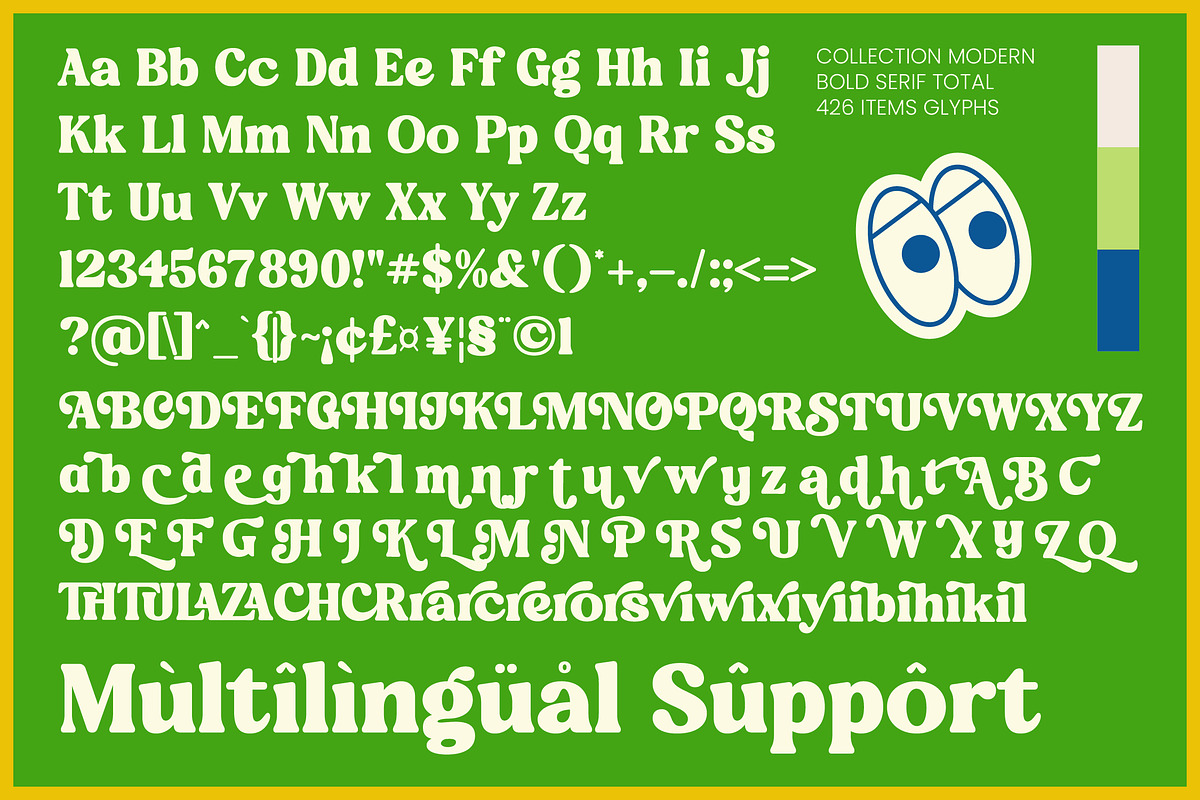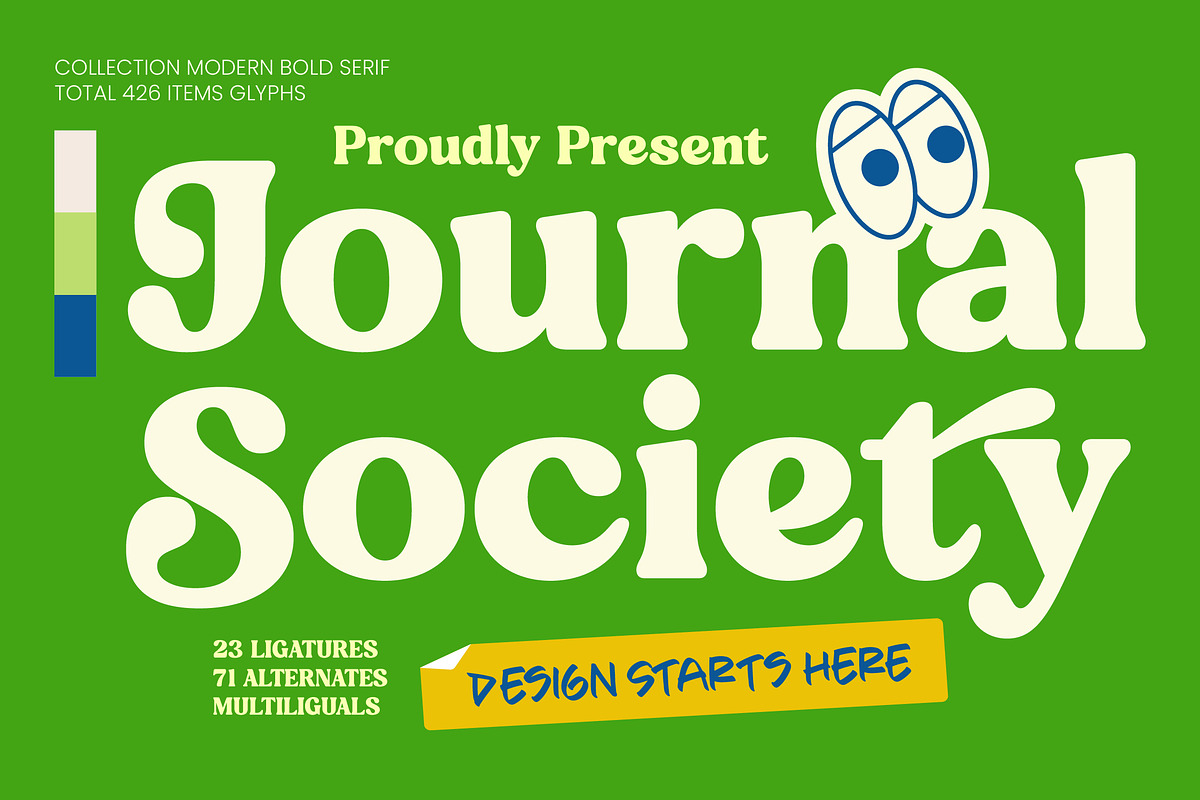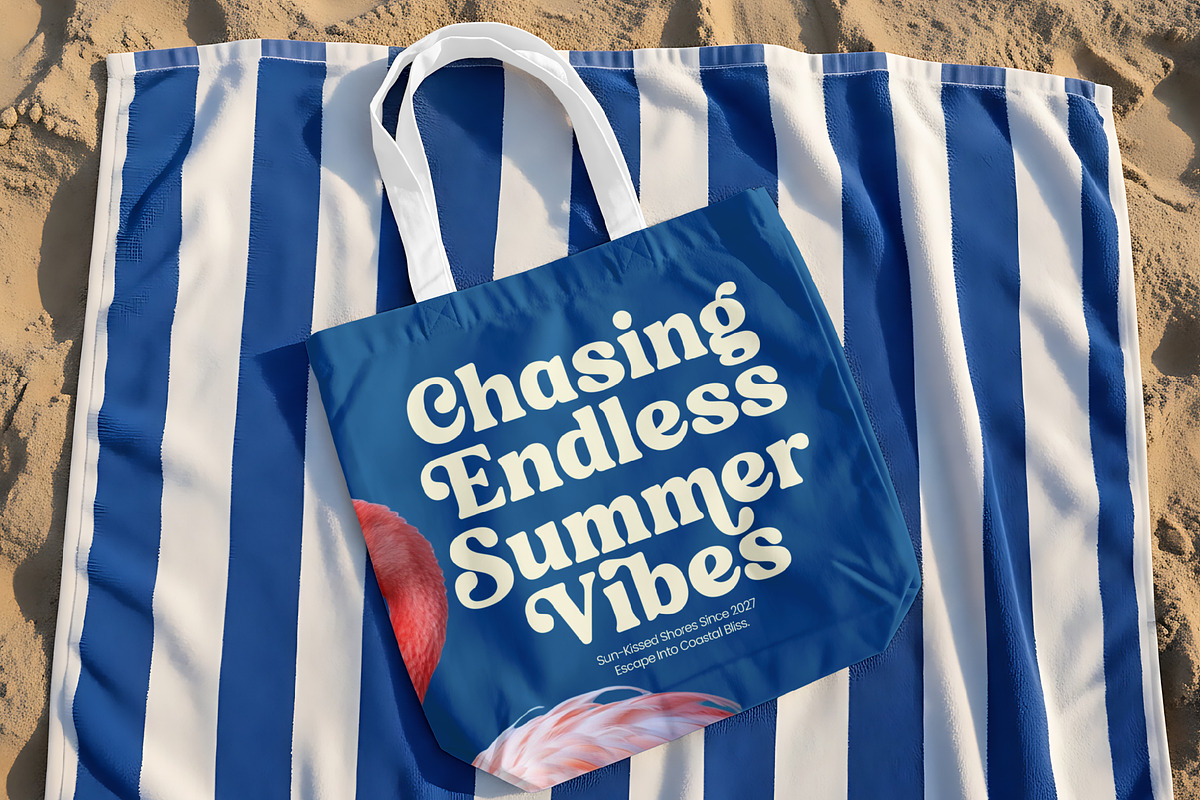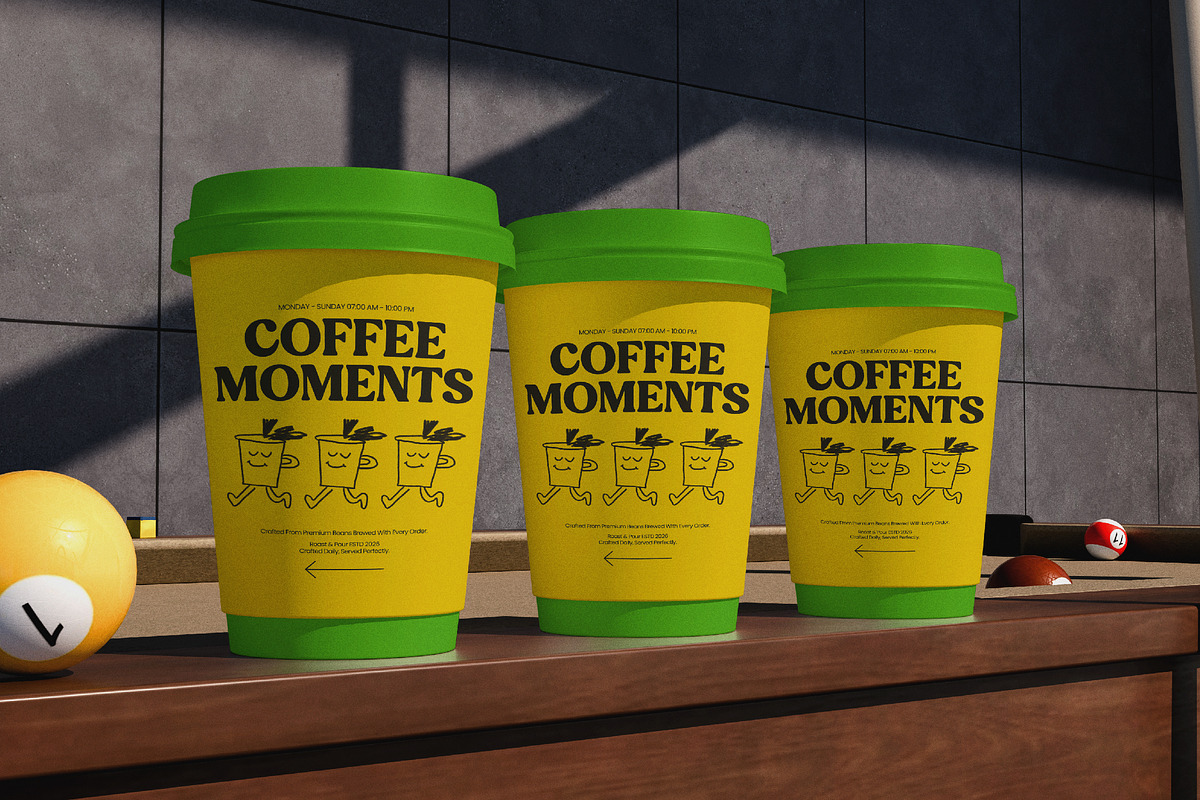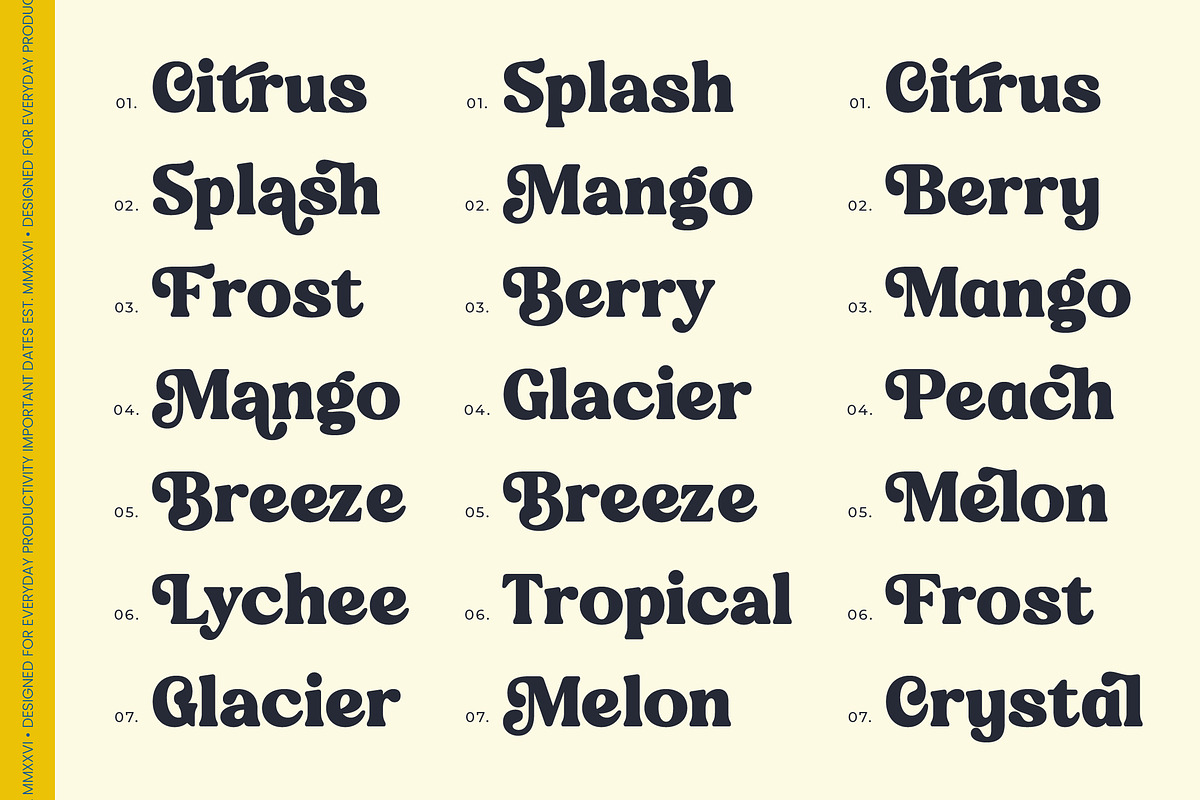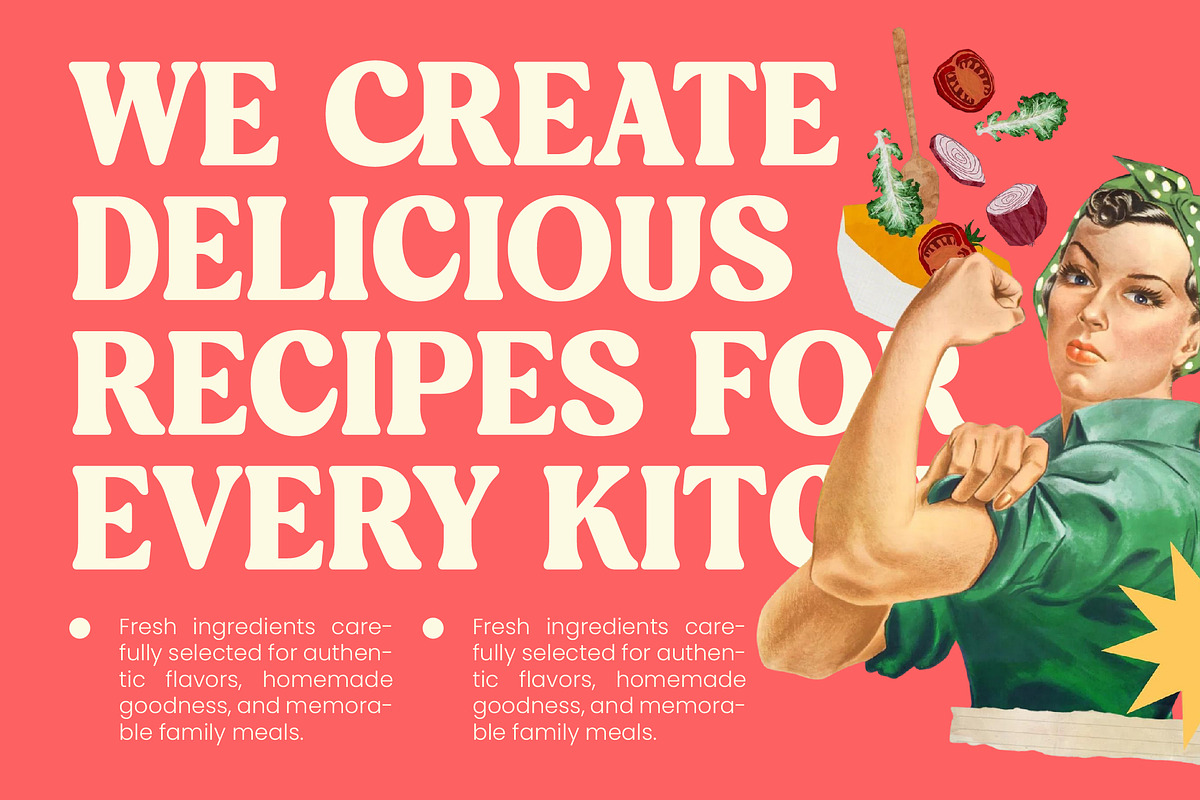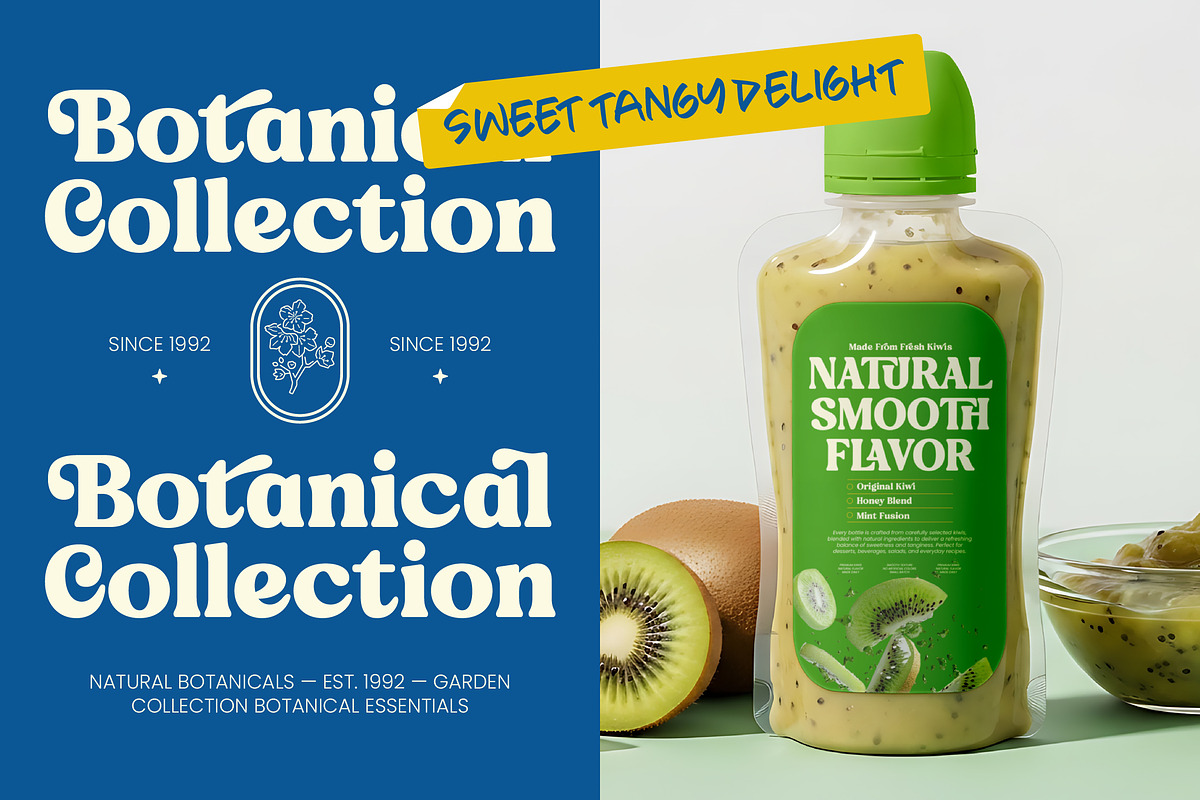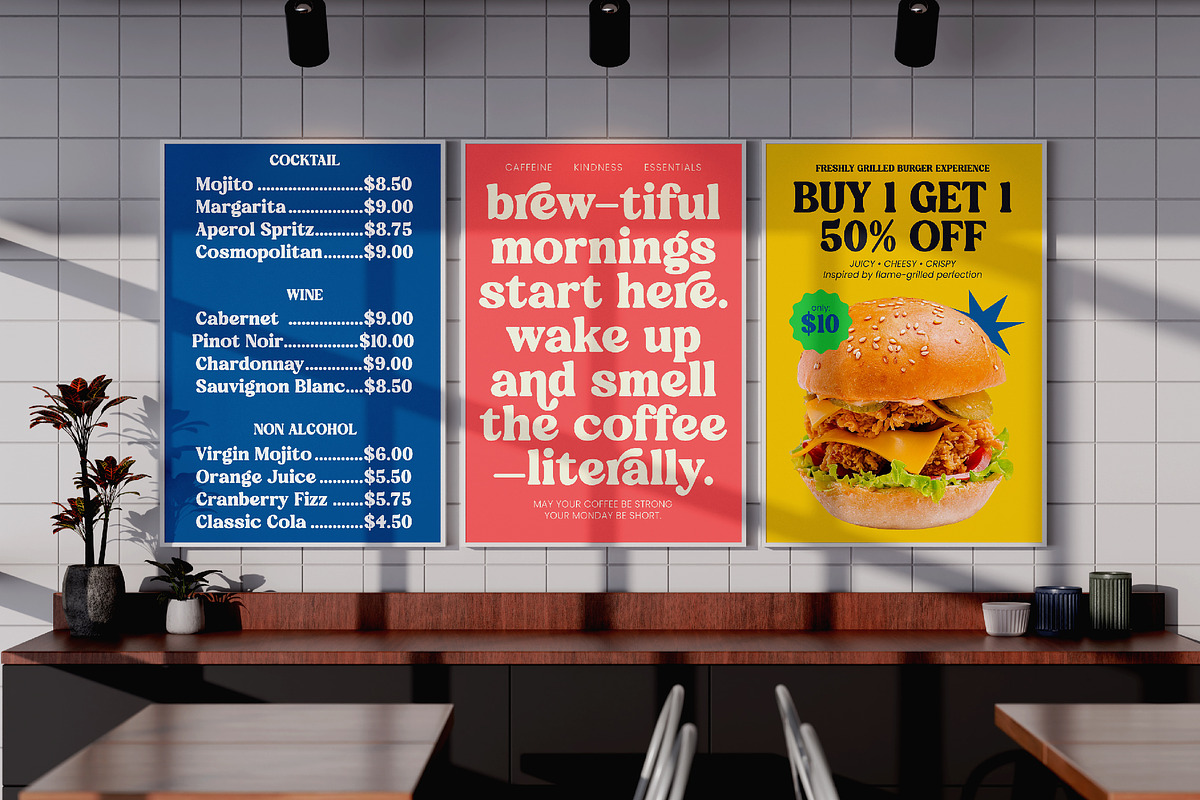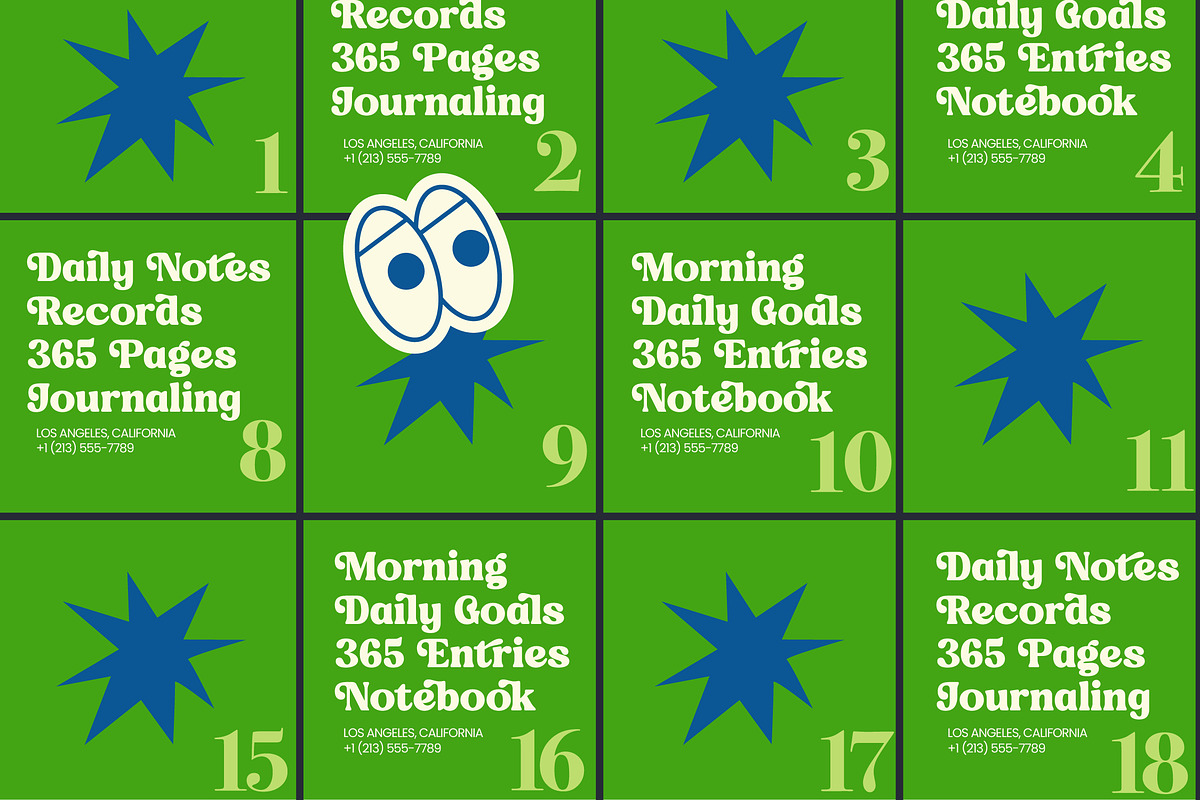
Journal Society Modern Bold Serif
Journal Society - Modern Bold Serif , Elevate your creative vision with a typeface that defines contemporary elegance and bold sophistication. Journal Society - Modern Bold Serif is a masterfully crafted modern bold serif that strikes a perfect balance between vintage charm and refined aesthetics. With its high-contrast strokes and smooth, flowing curves, it provides an instant visual impact that commands attention while maintaining a sense of approachable luxury for any high-profile project.
Precision craftsmanship meets artistic expression in every character, offering designers a powerful tool for dynamic typography. Boasting an impressive library of over 400 glyphs, including 23 bespoke ligatures and 71 stylistic alternates, Journal Society - Modern Bold Serif allows for endless customization. This level of detail ensures that your headers, logos, and layouts remain unique and professional, providing a tailor-made feel to every composition you create.
Designed for maximum versatility, this font serves as the ultimate anchor for high-end visual identities and creative storytelling. Journal Society - Modern Bold Serif is perfect for luxury branding, editorial design, and premium packaging. Whether you are developing sophisticated advertising campaigns or laying out lifestyle magazines, its bold presence and elegant structure ensure your message is delivered with clarity and unmistakable style.
Bridge the gap between local appeal and global reach through unparalleled technical flexibility and expansive character sets. With its extensive multilingual support, Journal Society - Modern Bold Serif adapts seamlessly across global markets, making it incredibly versatile for international projects. This ensures your brand identity remains consistent and powerful regardless of the linguistic landscape, making it a future-proof asset for modern creative studios.